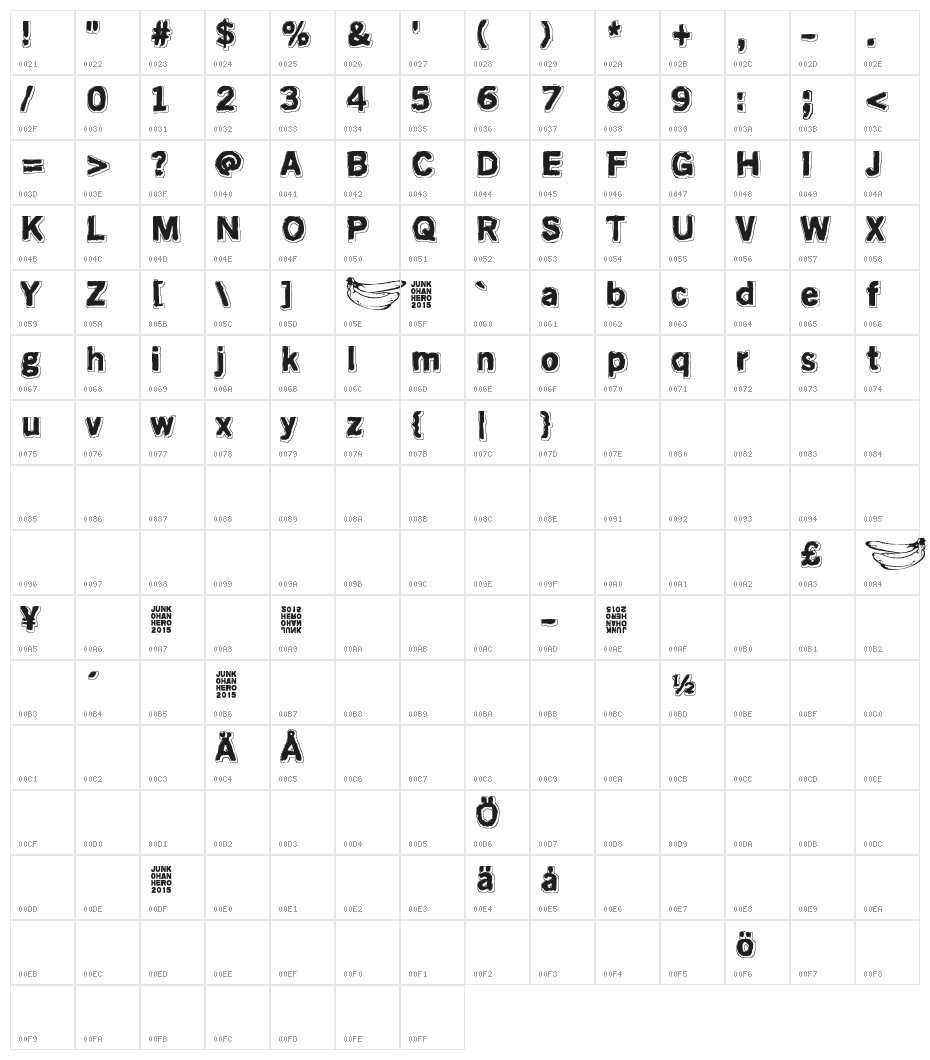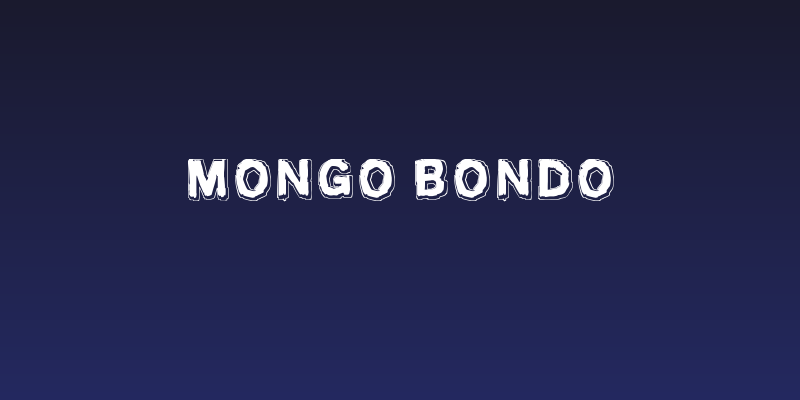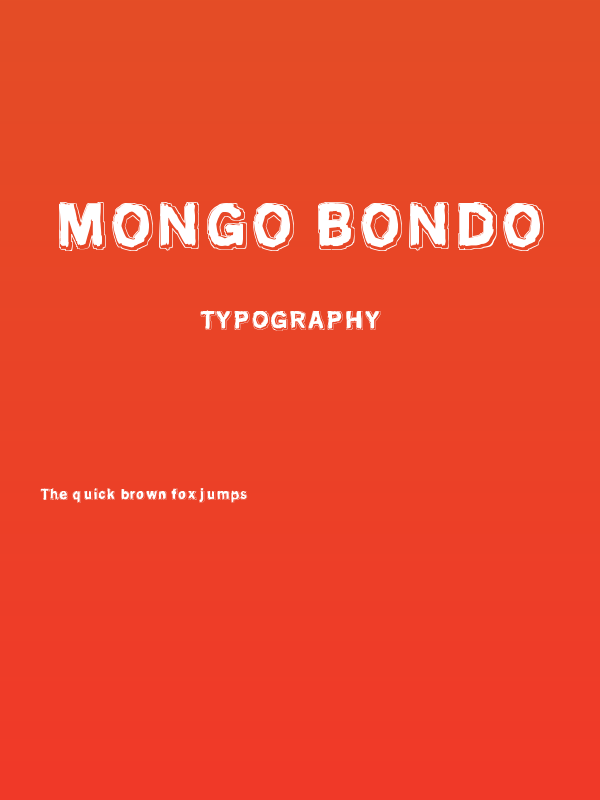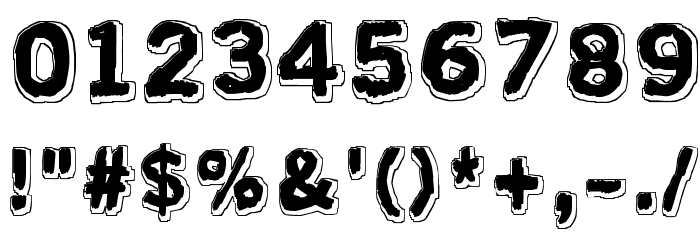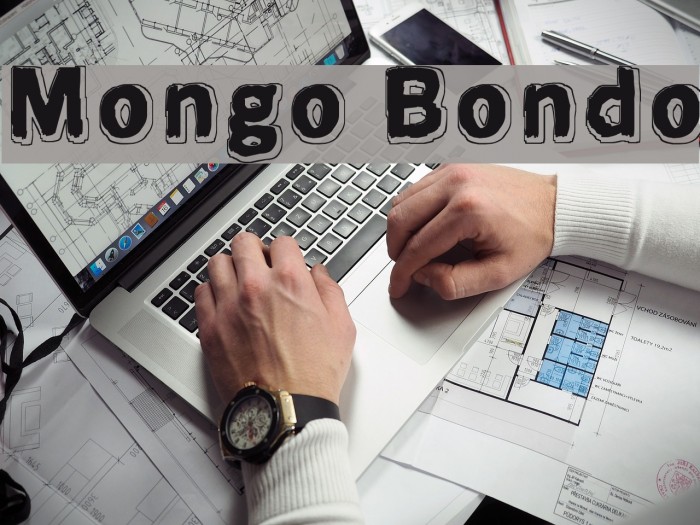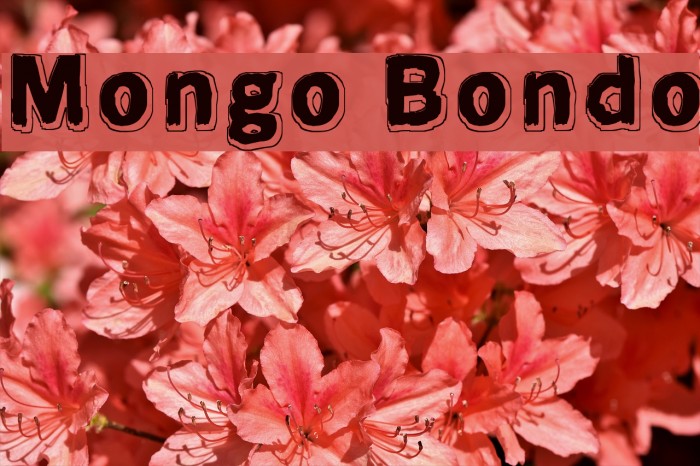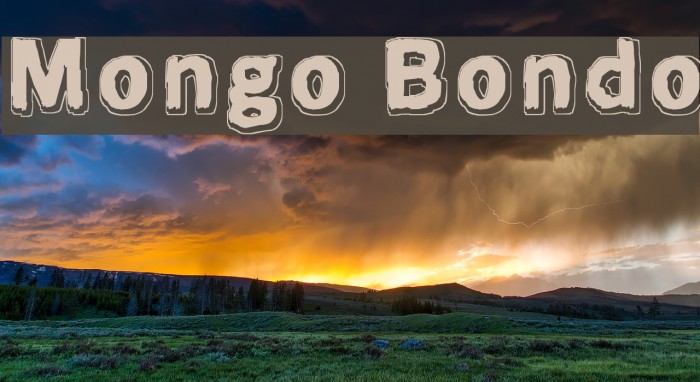
Mongo Bondo Font
Mongo Bondo Description
This font features a bold, playful style with a thick outline that gives each character a three-dimensional appearance. The letters are rounded and slightly irregular, adding a whimsical and informal touch. The uppercase and lowercase letters maintain consistent proportions, while the numerals and special characters are designed to match the overall aesthetic. The font's unique style makes it stand out, with a hand-drawn feel that is both approachable and dynamic. The bold outlines and filled centers create a striking contrast, enhancing readability while maintaining a fun and engaging look.
| Use Case | Headlines, Posters, Branding |
| Proposed Projects | Ideal for children's books, comic strips, playful branding, posters, and creative projects that require a fun and engaging typeface. |